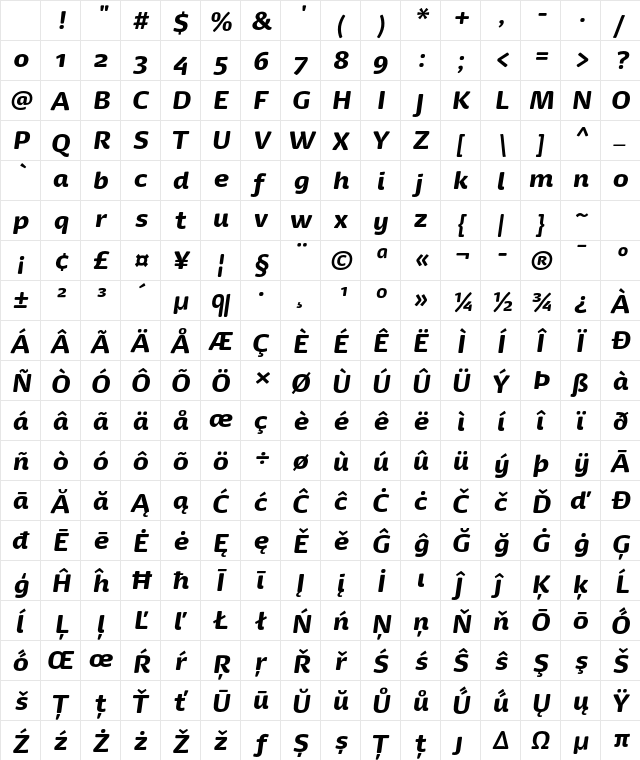
Complete Dancer Pro Black Italic glyph index. Displaying only characters natively supported by Dancer Pro Black Italic font.
Dancer Pro is a composed and adaptable typeface that performs quietly and consistently across a wide range of design contexts. The slanted form adds forward momentum and visual energy.
Pro Tip: Use Dancer Pro for emphasis, pull quotes, and subheadings where its slanted energy can add rhythm to the layout.